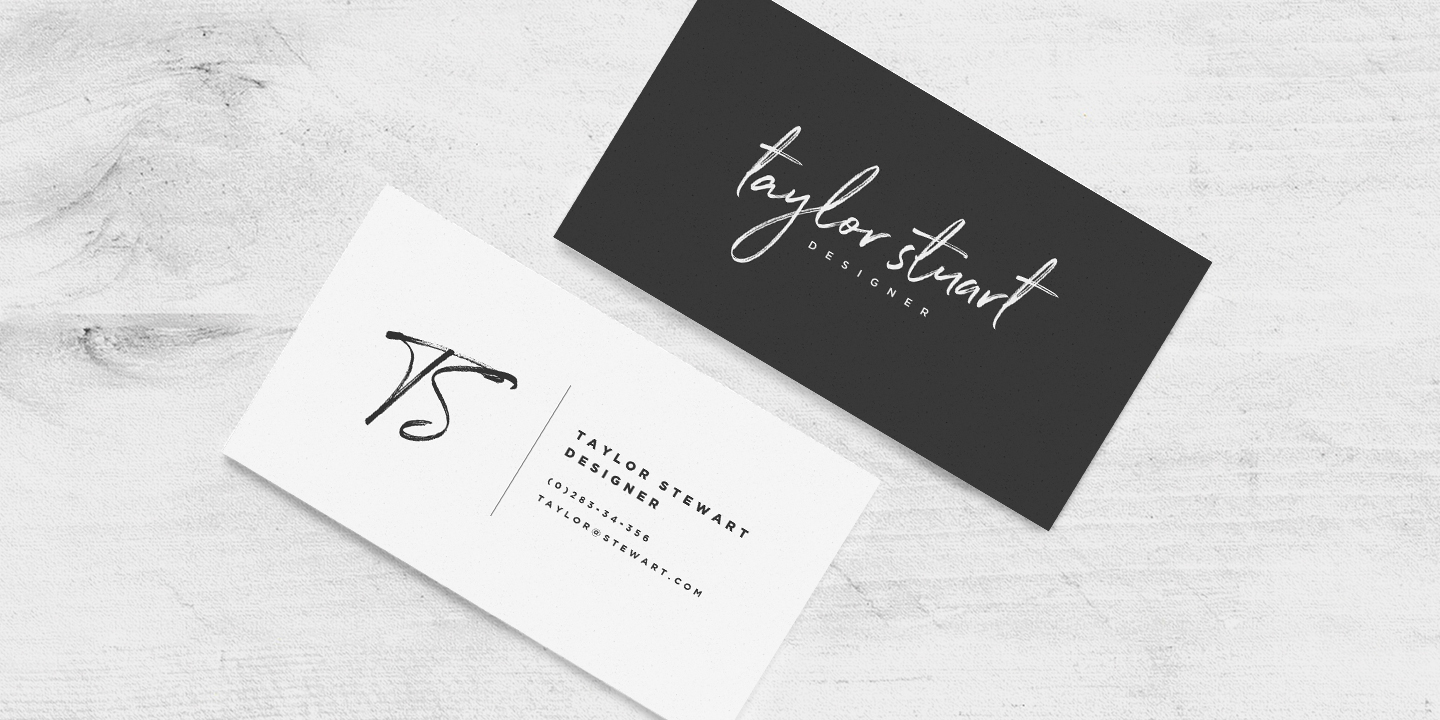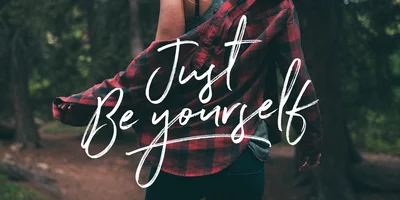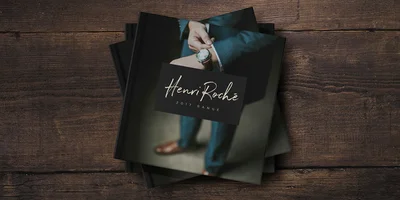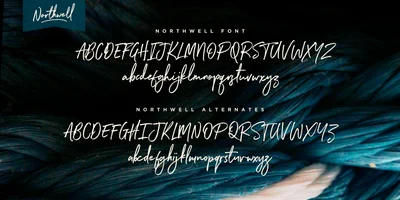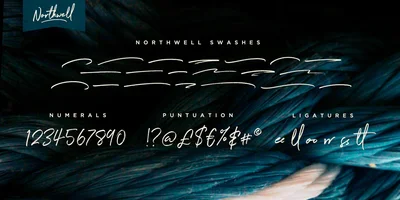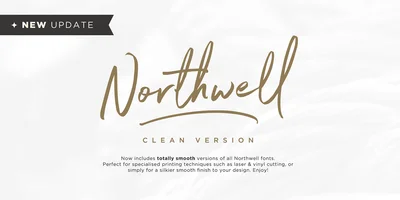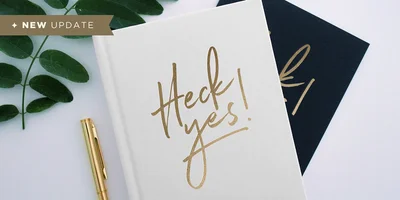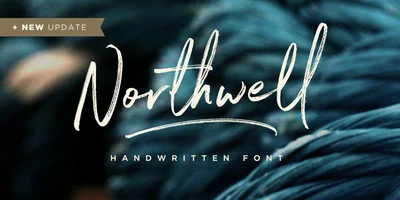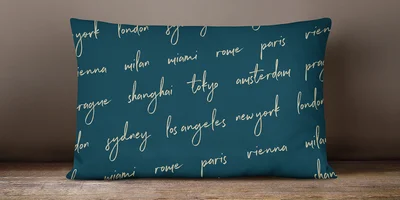
House Script vs Northwell
House Script and Northwell are both display typefaces sharing a warm foundation. Where House Script leans script, branding, Northwell brings handwritten, modern. Compare which suits your Branding project.
House Script
Script
Warm
Northwell
WarmHandwrittenModern
House Script
| Feature | House Script | Northwell |
| Classification | display | display |
| Language Support | latin | latin |
| Source | House Industries | Sam Parrett |
Recommended: House Script
- script, branding design character
- Suited for Packaging and Display
- From House Industries
Consider: Northwell
- handwritten, modern design character
- Suited for Signatures and Creative
- From Sam Parrett